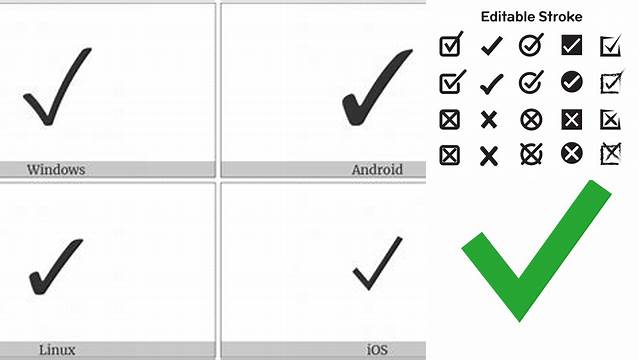
Free Check Mark Fonts: Download, Install & Design Guide
Check Mark Font: Your Ultimate Guide to Free Downloads and Design Mastery
Hey guys! Are you looking for a way to add a touch of professionalism and visual appeal to your designs? Look no further! In this comprehensive guide, we'll dive deep into the world of check mark fonts, offering you everything you need to know about free downloads, usage, and how to leverage these fonts to elevate your creative projects. Whether you're a seasoned designer or just starting out, this article is your one-stop shop for all things check marks!
What is a Check Mark Font? Why Do You Need One?
So, what exactly is a check mark font? Simply put, it's a font family that includes various check mark symbols, ticks, and related icons. These fonts go beyond basic text characters, providing a visual representation of confirmation, completion, or agreement. Instead of just typing a standard text-based "check," you get a beautifully designed and visually consistent mark. This can significantly enhance the look and feel of your designs. Why use a check mark font, you ask? The benefits are numerous!
First and foremost, check mark fonts offer a polished and professional aesthetic. Imagine using a standard text-based checkmark – it might look out of place and unprofessional. A dedicated font ensures your check marks are visually consistent and blend seamlessly with your overall design. Secondly, these fonts save you time and effort. Instead of manually creating or sourcing check mark graphics, you can simply type the corresponding character in your chosen font. This streamlines your workflow, allowing you to focus on the core aspects of your project. Furthermore, using check mark fonts can improve the readability and clarity of your content. They help direct the user's eye, making it easy to identify completed tasks, approved items, or positive feedback. This is especially beneficial in lists, forms, or any design where clear visual cues are essential.
Think about the applications – these fonts are incredibly versatile. They're perfect for creating to-do lists, highlighting completed tasks in project management software, designing user interfaces, and even sprucing up your social media graphics. They can add a layer of professionalism to any project, making your design pop. Finally, using a consistent and visually appealing check mark communicates attention to detail. It shows that you care about the overall presentation, which enhances your credibility. In short, investing in a check mark font is an investment in your design's quality, efficiency, and impact. So, whether you're working on a website, a presentation, or a simple checklist, these fonts are a powerful tool to add to your design arsenal. Ready to find the perfect check mark font? Let's get started!
- Behance and Dribbble: These platforms showcase the work of designers worldwide. You might discover free check mark fonts created and shared by talented designers. This can be an exciting way to find unique and custom-designed options, but again, double-check the license. Also, a lot of the fonts are available for personal use only, so be careful if you intend to use them in a commercial environment.
- Font Bundles: While not always free, Font Bundles often offer free font bundles, and these might include a check mark font. Keep an eye on their freebies section. This is a good option for grabbing entire font collections, and it gives you access to multiple styles and font families. Make sure to always read and understand the license terms.
How to Install and Use Your Check Mark Font
So, you've downloaded your chosen check mark font! Now what? Let's get you set up so you can start using those fancy check marks in your designs. The installation process is pretty simple, and it varies slightly depending on your operating system (OS) and the design software you're using. Let's go over the general steps:
Conclusion: Embrace the Power of Check Marks!
There you have it! You now have the knowledge and resources to find, download, install, and effectively use check mark fonts in your designs. From adding a touch of professionalism to creating clear and engaging visuals, check mark fonts are a valuable addition to any designer's toolkit. So go out there, experiment, and have fun with your designs! Happy creating, guys!